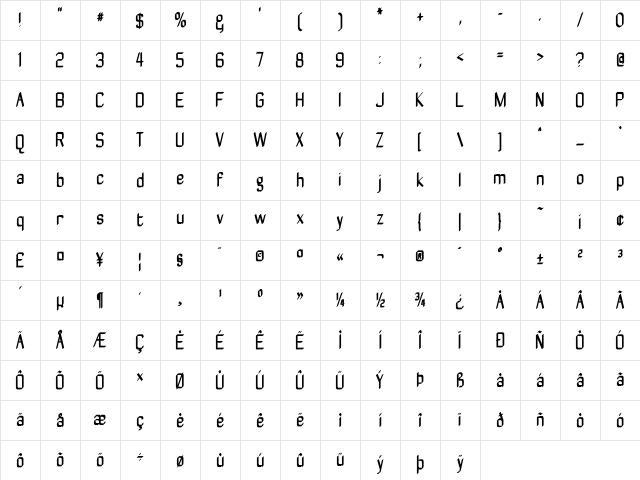
ZyphyteCondense Regular Free Font
ZyphyteCondense Regular
ZyphyteCondense Family
Design Context for ZyphyteCondense
ZyphyteCondense is a composed and adaptable typeface that performs quietly and consistently across a wide range of design contexts. Its narrow stance lets it pack a punch even in space-constrained designs.